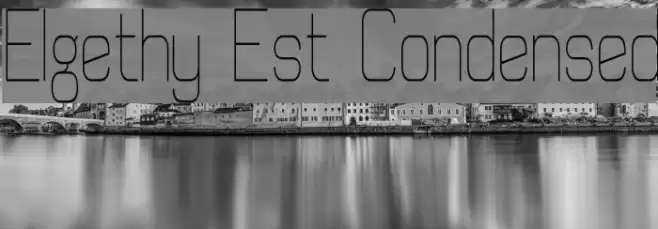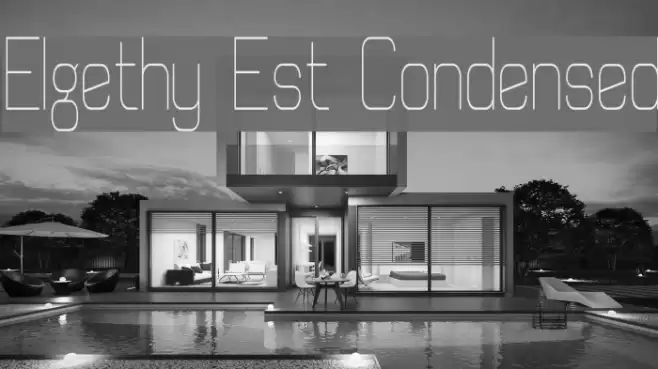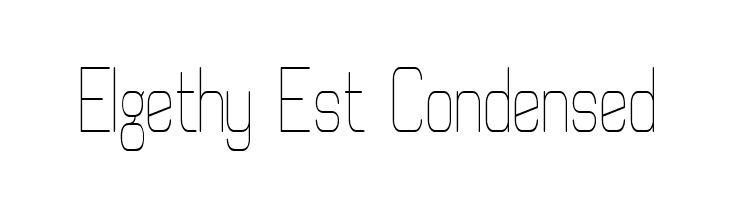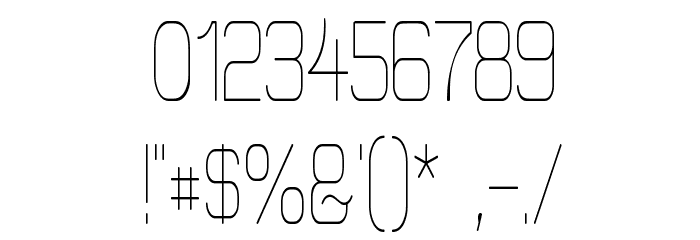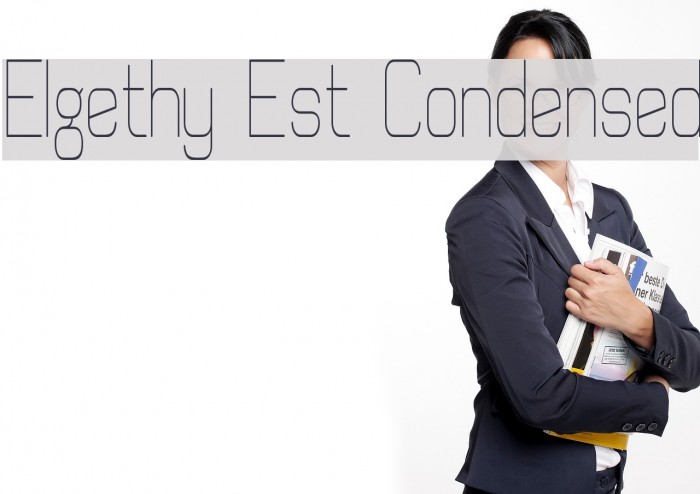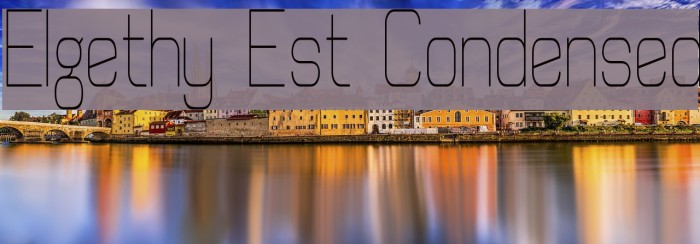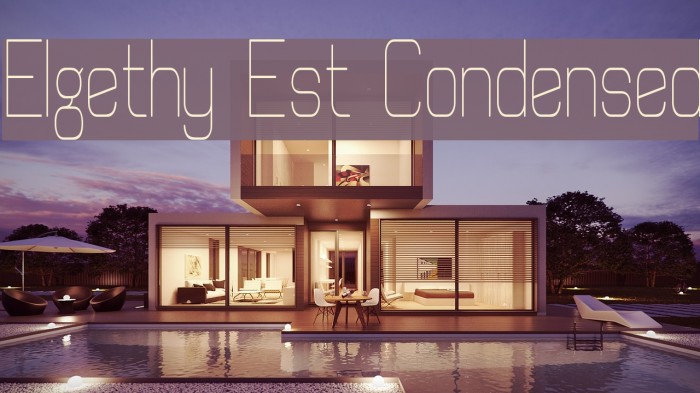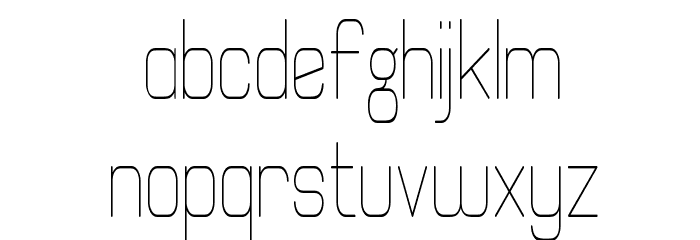
Elgethy Est Condensed Font
Elgethy Est Condensed Description
This font features a modern, geometric design with a condensed structure, characterized by thin, uniform lines and a minimalist aesthetic. The uppercase and lowercase letters maintain a consistent height, creating a sleek and streamlined appearance. The numerals and special characters follow the same design principles, ensuring a cohesive look across all elements. The font's simplicity and clarity make it highly legible, even at smaller sizes, while its unique style adds a contemporary touch to any project.
A modern, geometric, and condensed font with thin lines and a minimalist style from Modern fonts.
- Proposed Projects: Ideal for modern branding, tech-related designs, minimalist posters, and sleek editorial layouts.